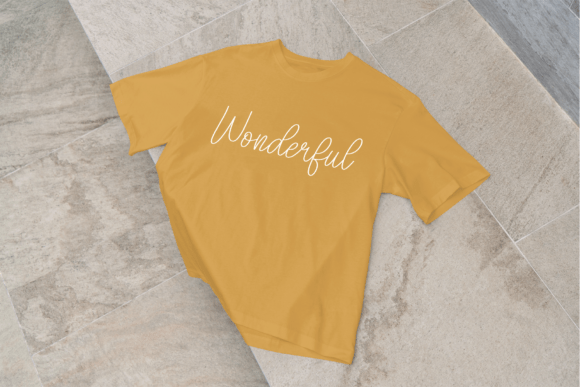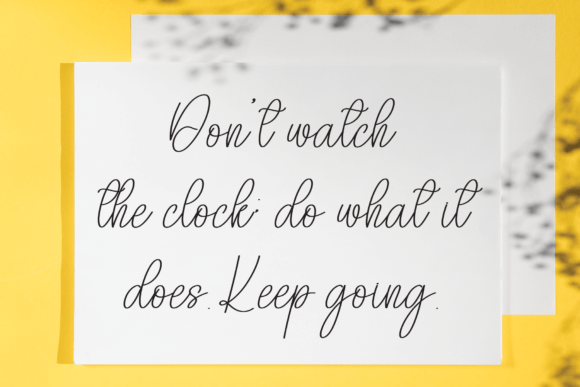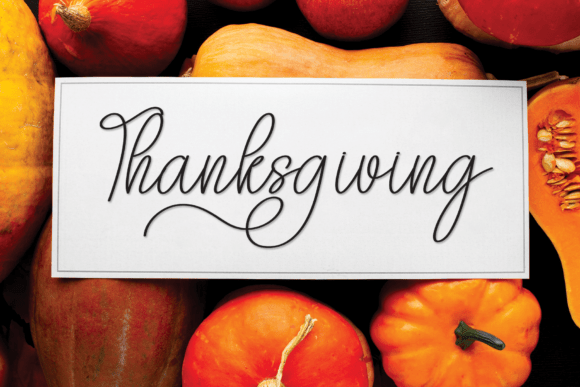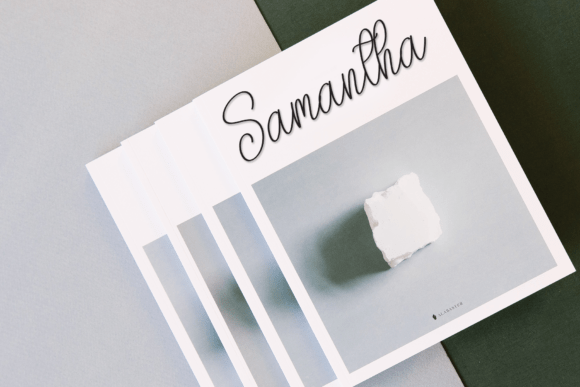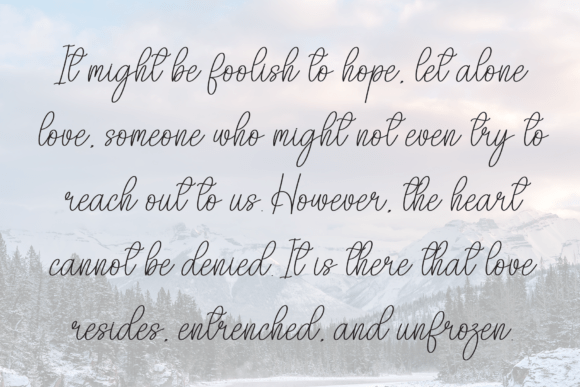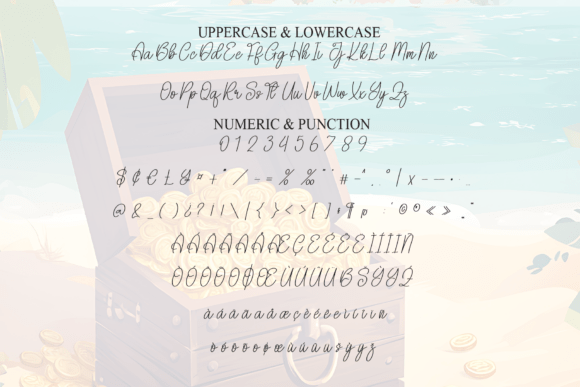
Discover the Charming Bounty Font: Elevate Your Designs with Warmth and Whimsy
I’ll never forget the time I was working on a wedding invitation project, and my client asked for a font that would make their special day feel like a warm hug. I scoured the internet, tried out countless typefaces, but nothing seemed quite right. That was until I stumbled upon the Bounty Font. Its handwritten charm and welcoming warmth instantly captured the essence of the couple’s joyful celebration. In this article, I’ll share my love for this captivating font, its features, and how you can make the most of it in your designs.
An Honest Review of Bounty Font
What I Love About Bounty Font
• ✨ Handwritten warmth: Bounty Font exudes a sense of friendliness and approachability, making it perfect for designs that require a personal touch.
• ✅ Versatility: This font is incredibly versatile, suitable for a wide range of projects, from wedding invitations and cards to branding and packaging.
• 💫 Unique character: Bounty Font has a distinct, whimsical flair that sets it apart from more traditional typefaces.
While Bounty Font is an exceptional typeface, there are a few things to keep in mind:
• ⚠️ Legibility at small sizes: As with many handwritten fonts, Bounty Font can become a bit tricky to read at very small sizes. It’s best used at larger sizes, such as headlines or titles.
• 🤔 Overuse of swashes: While Bounty Font’s swashes and stylistic alternates are beautiful, overusing them can make your design look cluttered. Use them sparingly to add visual interest.
The Designer Inspiration Behind Bounty Font
Bounty Font was inspired by the charming, handwritten signs found in quaint bakeries and cafes. Its creator aimed to capture the warmth and hospitality of these welcoming spaces and translate it into a typeface that would bring joy to designers and their clients.
Q: What type of projects is Bounty Font best suited for?
A: Bounty Font is perfect for designs that require a personal touch, such as wedding invitations, cards, branding, and packaging.
Q: Is Bounty Font suitable for body text?
A: While Bounty Font is beautiful, it’s best used as a display font or for short paragraphs. Its handwritten nature can make it difficult to read in large blocks of text.